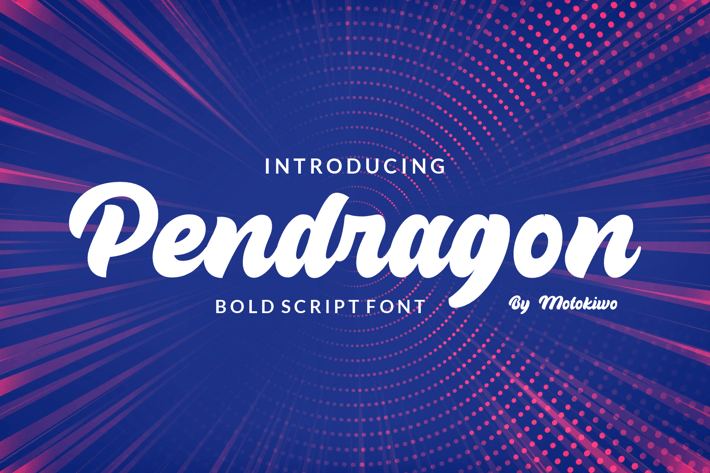
Pendragon - Bold Script Font
Pendragon is one of our favorite font we have made. It's sweet and bold script font that will useful for any typography project. Pendragon supports multilingual characters and easy to use in any device or program.